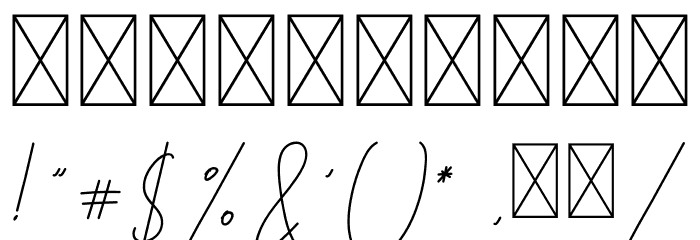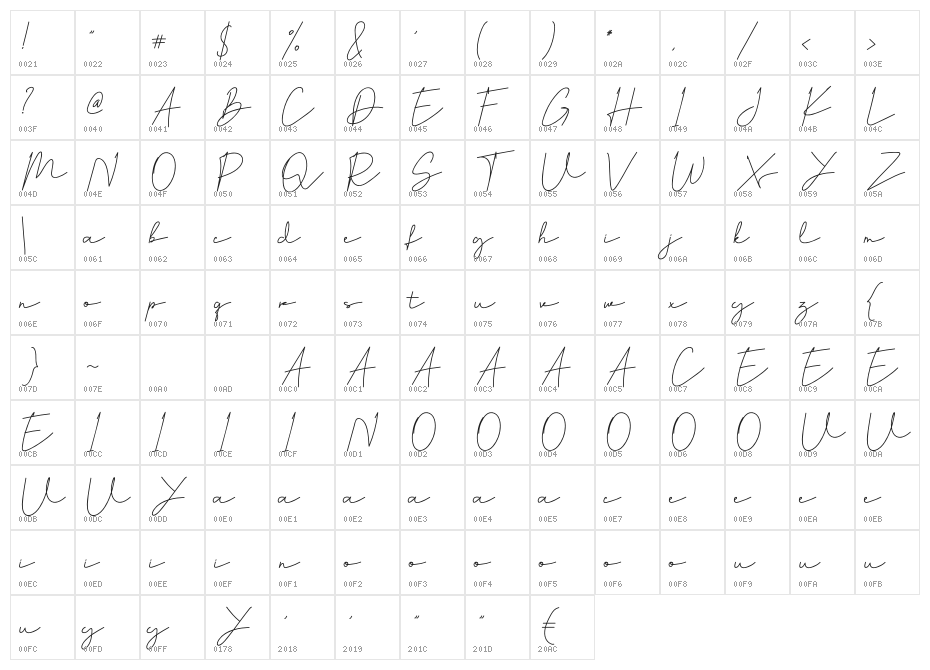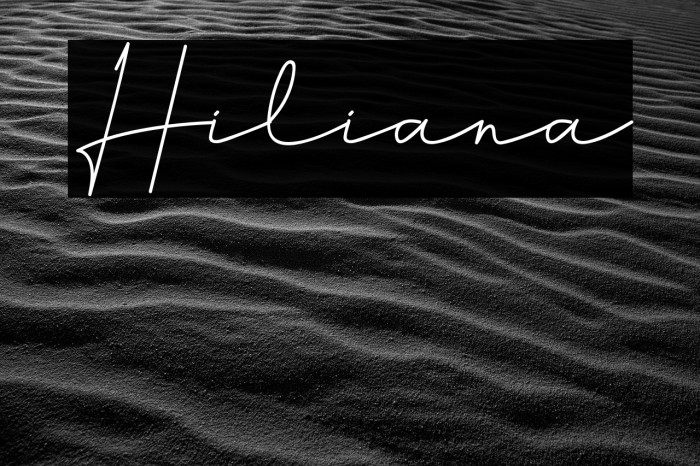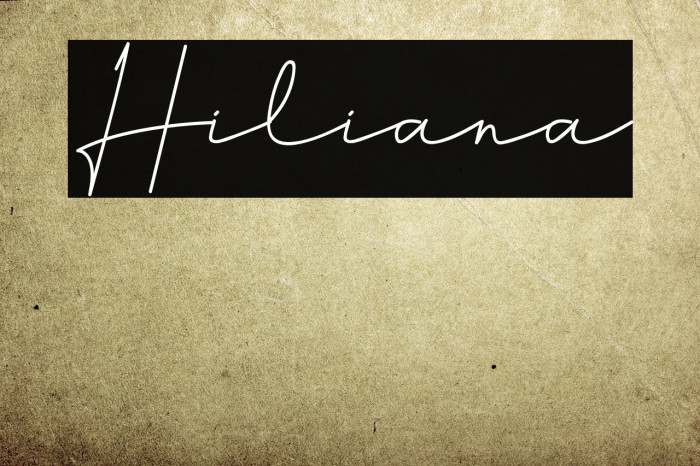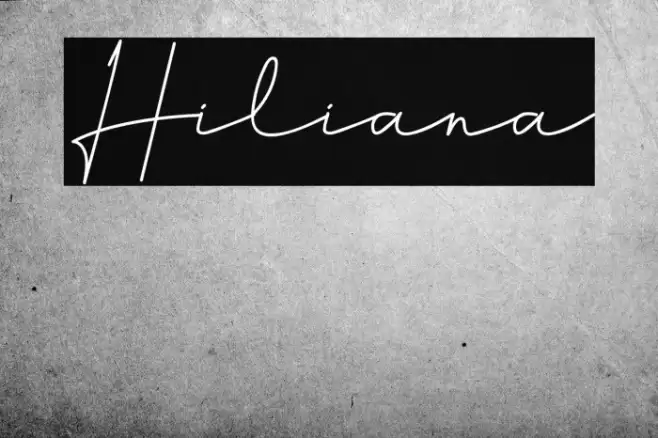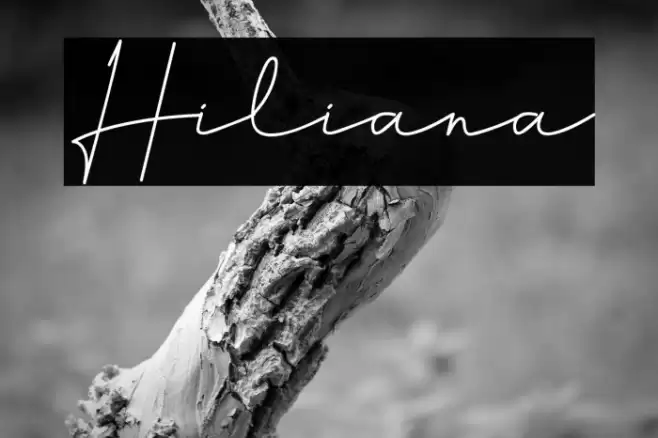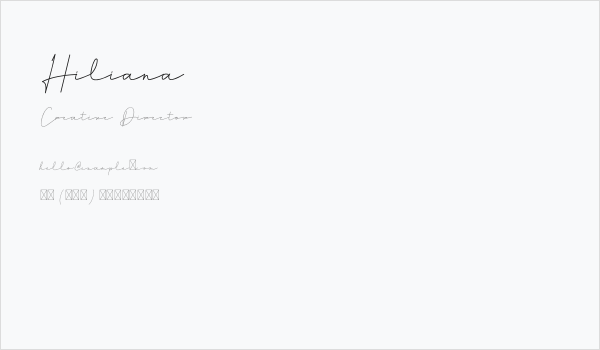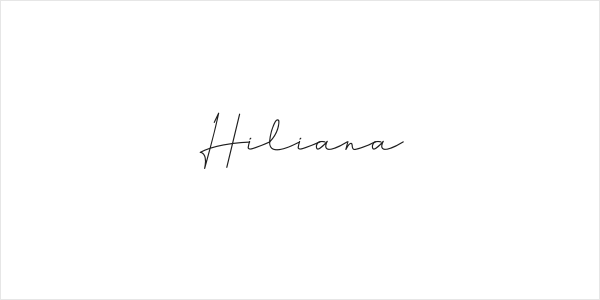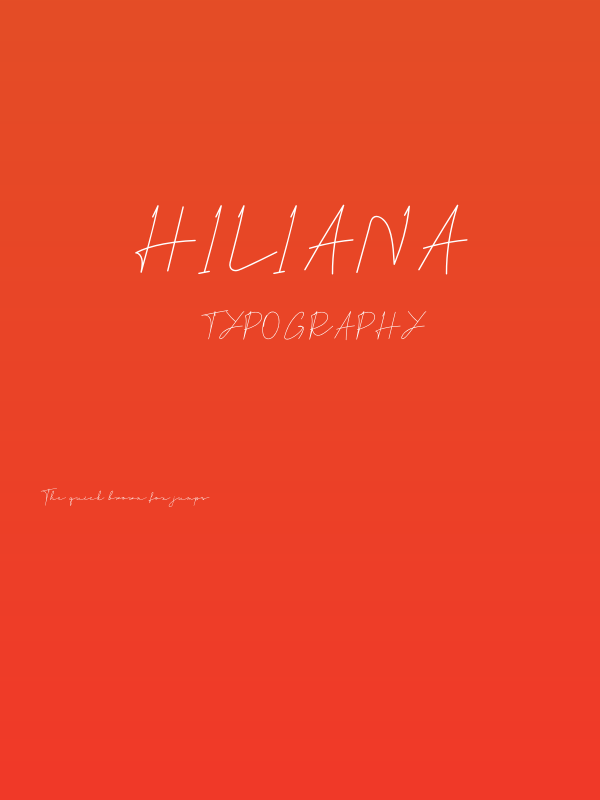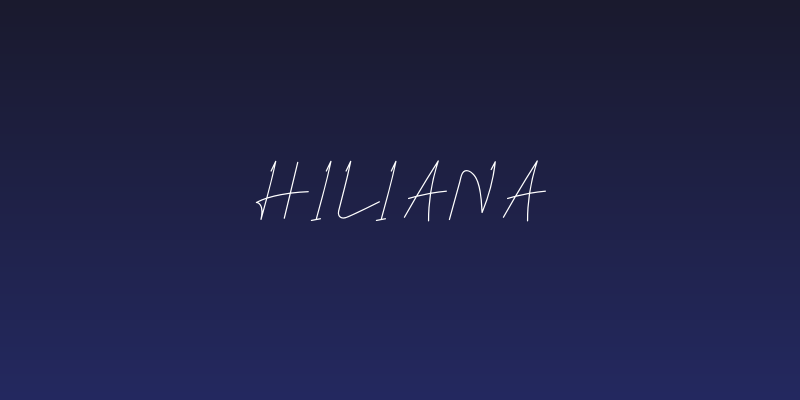
Hiliana Font
Hiliana Description
This font features a delicate and elegant handwritten style, characterized by its flowing and continuous strokes. The uppercase letters maintain a consistent height with a slight slant, giving a sense of motion and fluidity. The lowercase letters are beautifully crafted with loops and curves that enhance its cursive nature. The overall appearance is light and airy, making it suitable for designs that require a personal and intimate touch. The special characters are styled to match the script, maintaining the cohesive look of the font.
| Overall Style | Elegant, Personal, Intimate |
| Proposed Projects | Ideal for wedding invitations, personal branding, greeting cards, and elegant stationery. |